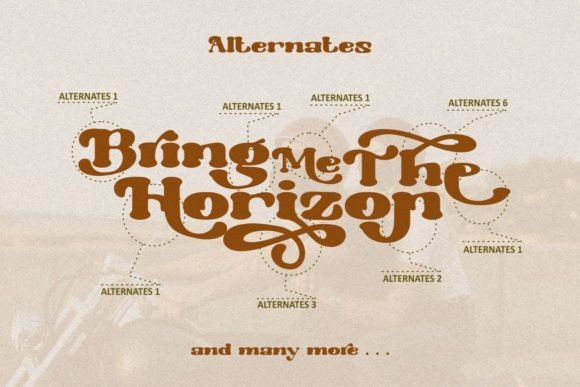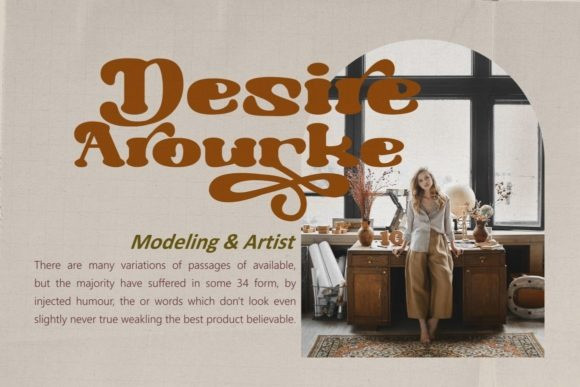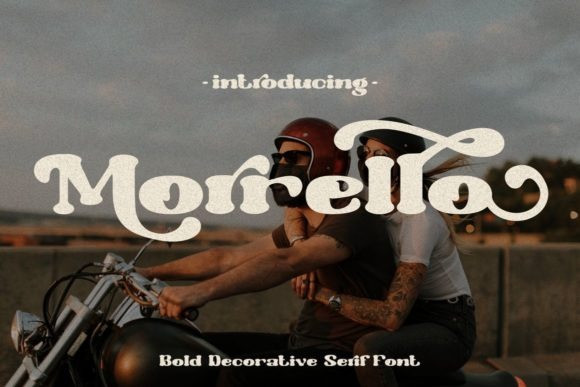
Morrello Font
Morrello Retro Font is a cool and modern display font. It will add a luxury spark to any design project that you wish to create! This font is PUA encoded which means you can access all of the glyphs and swashes with ease!